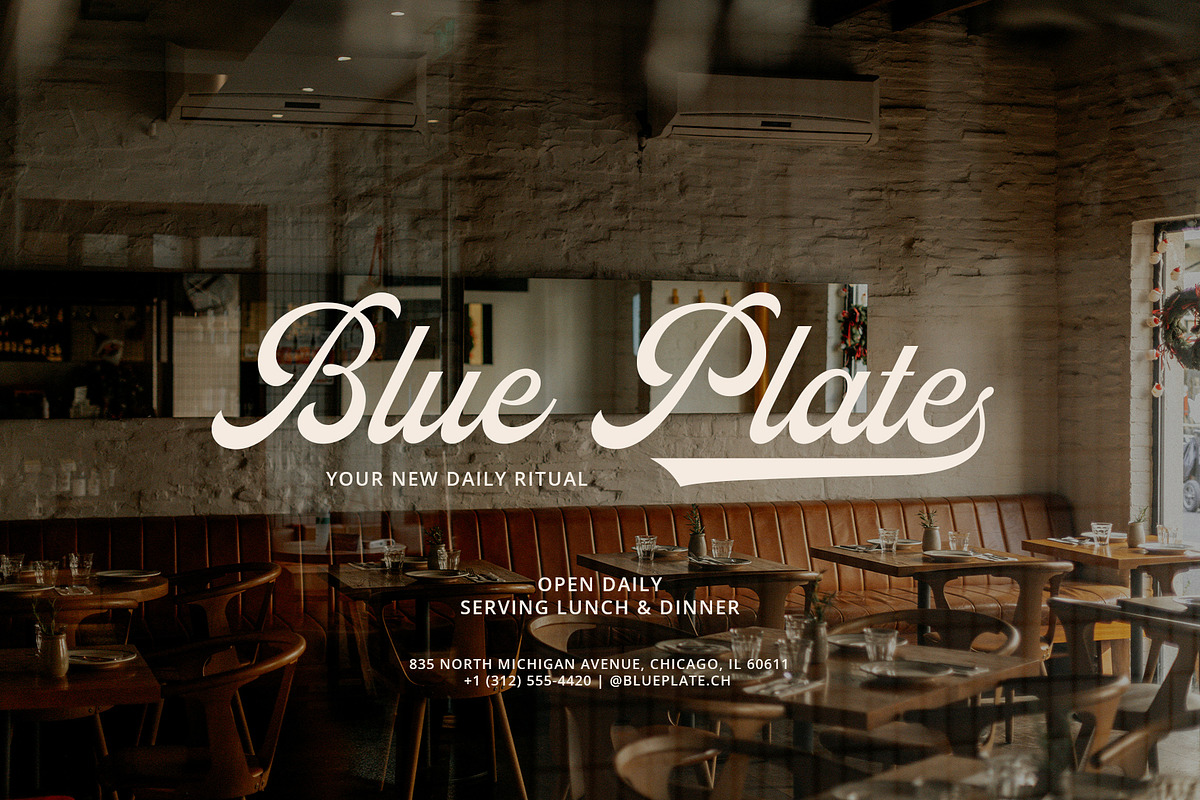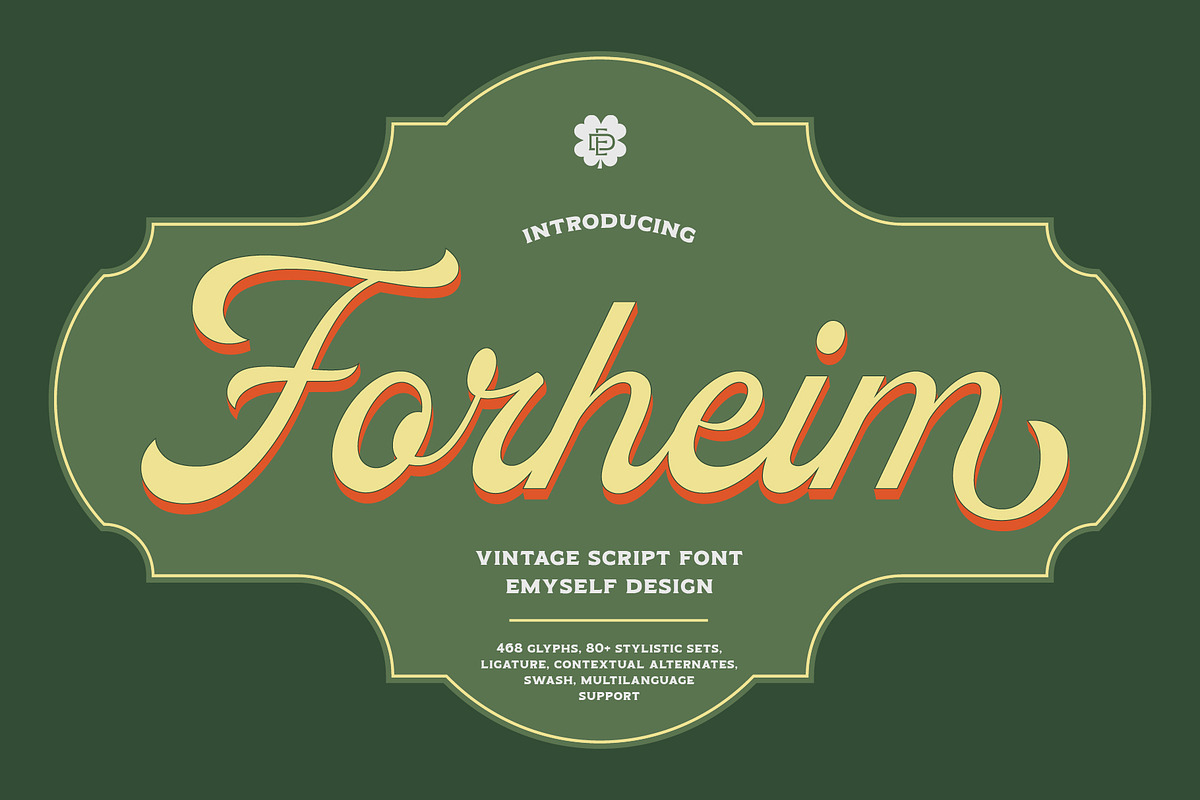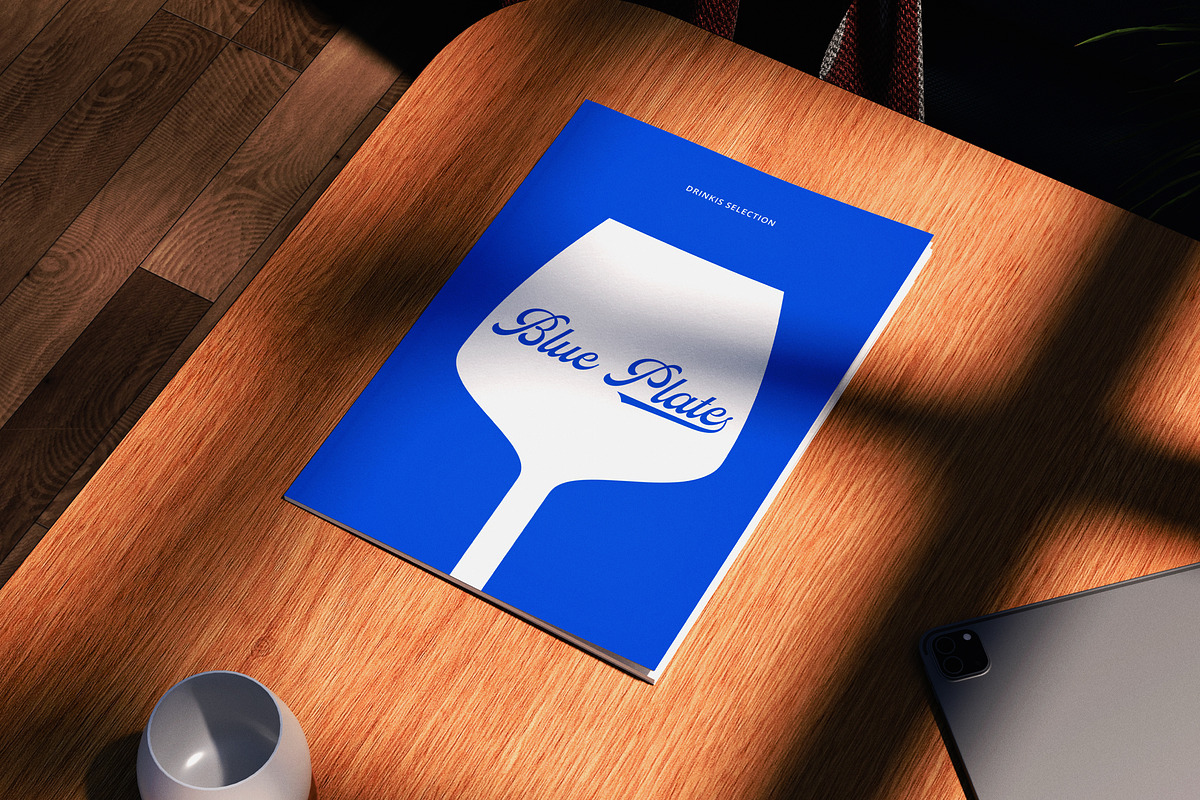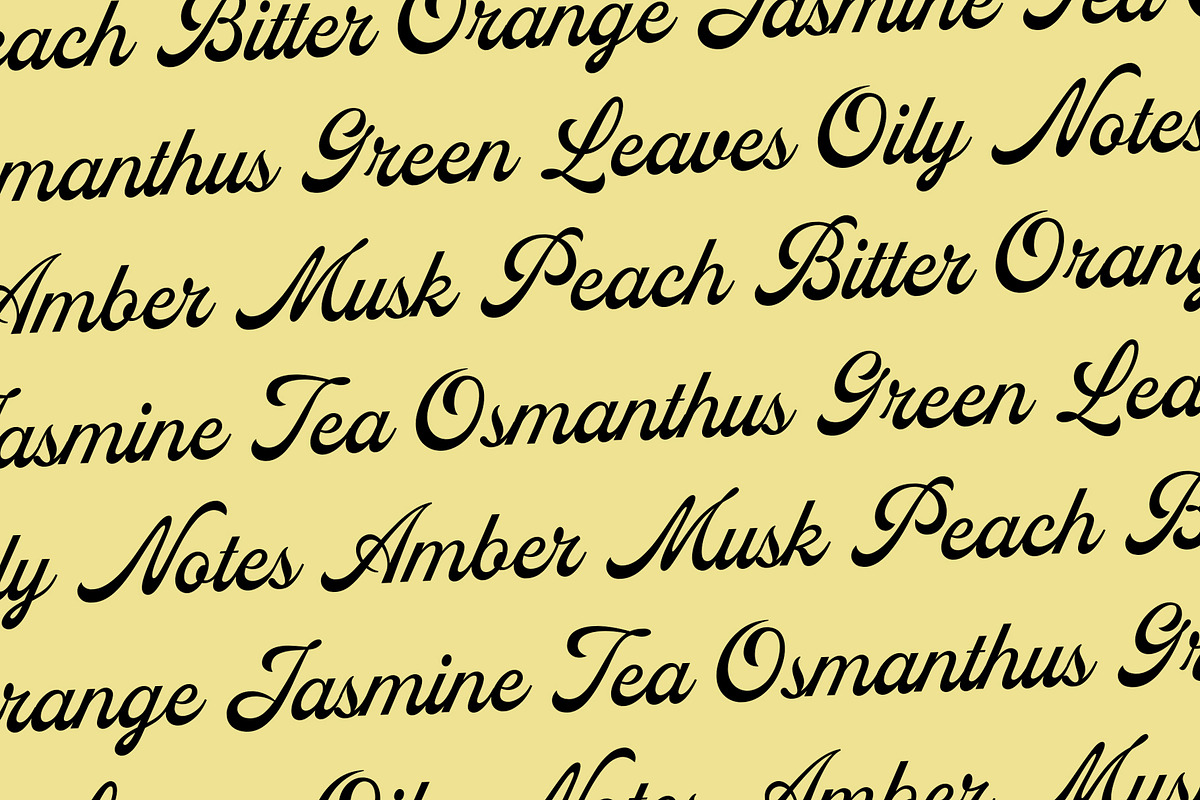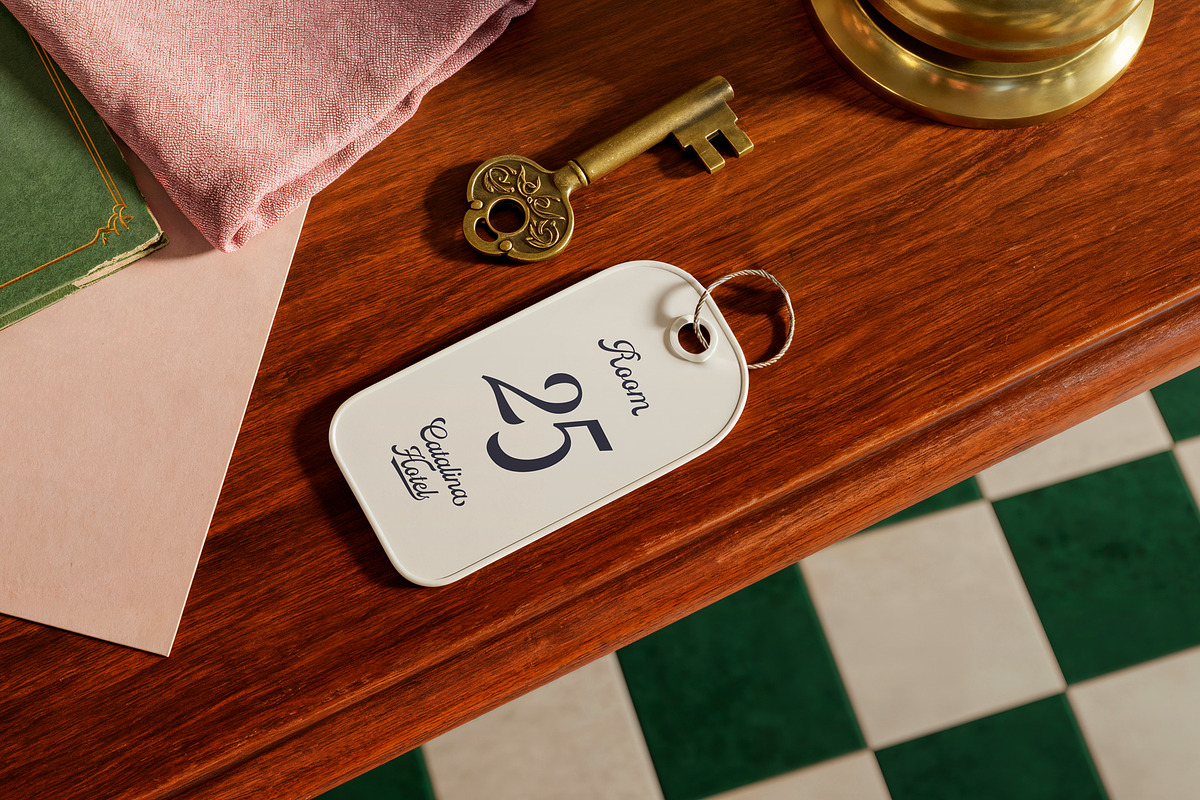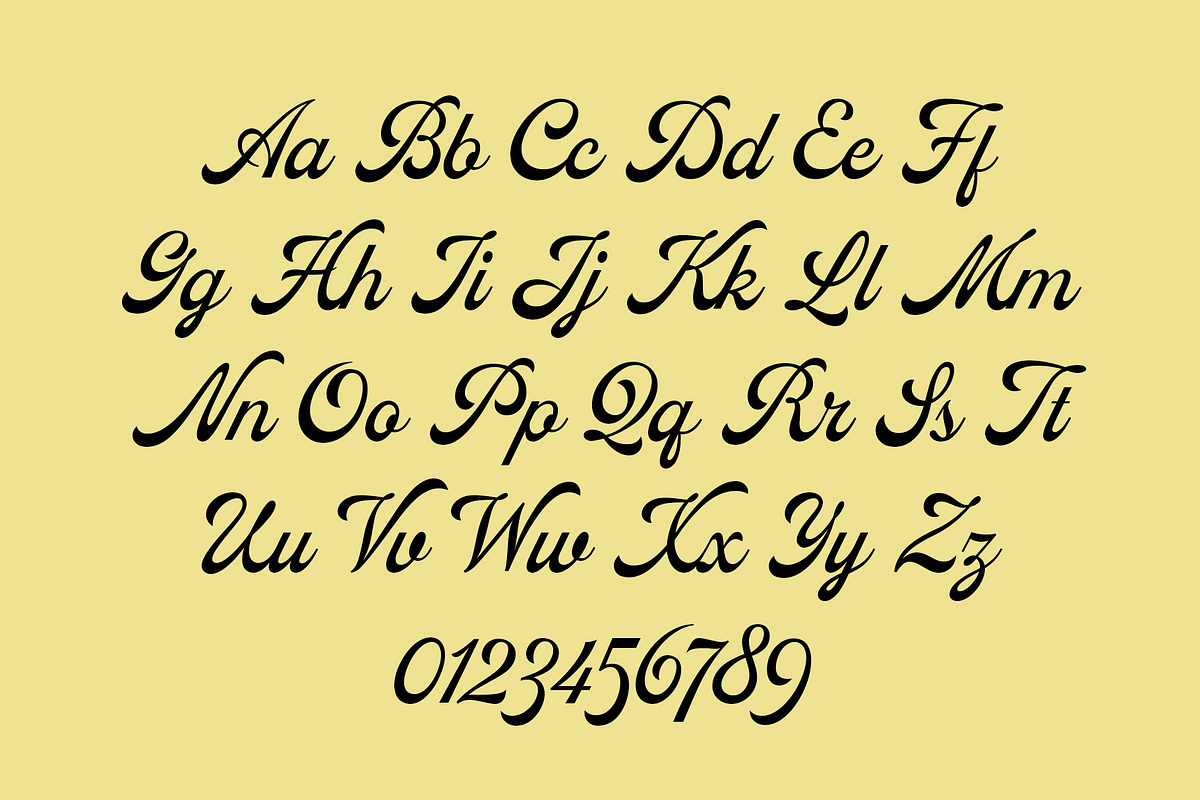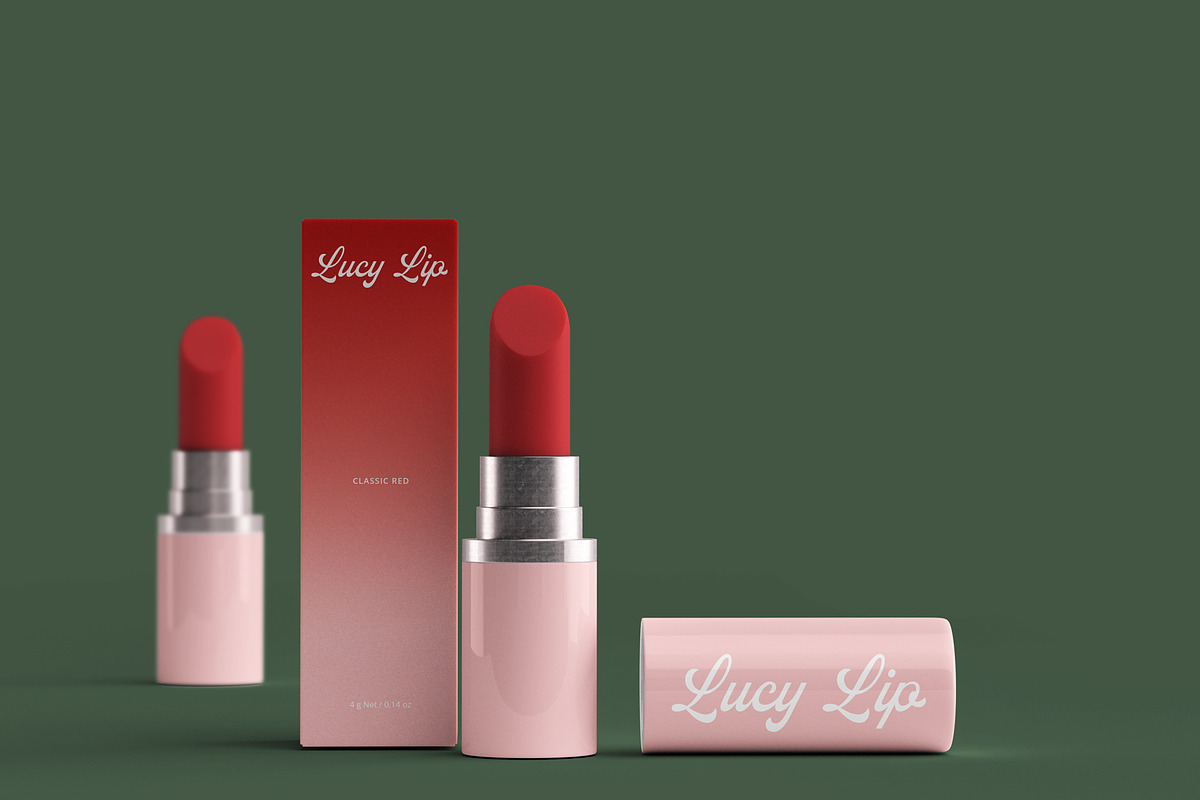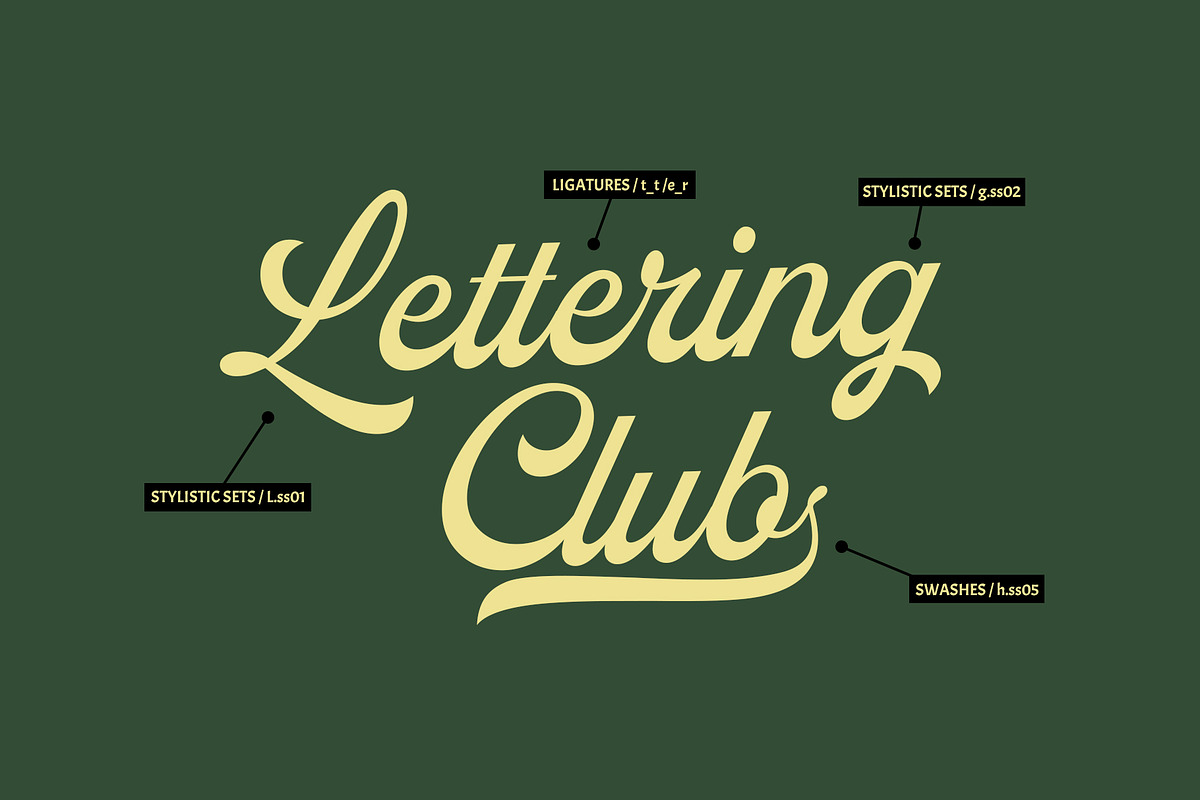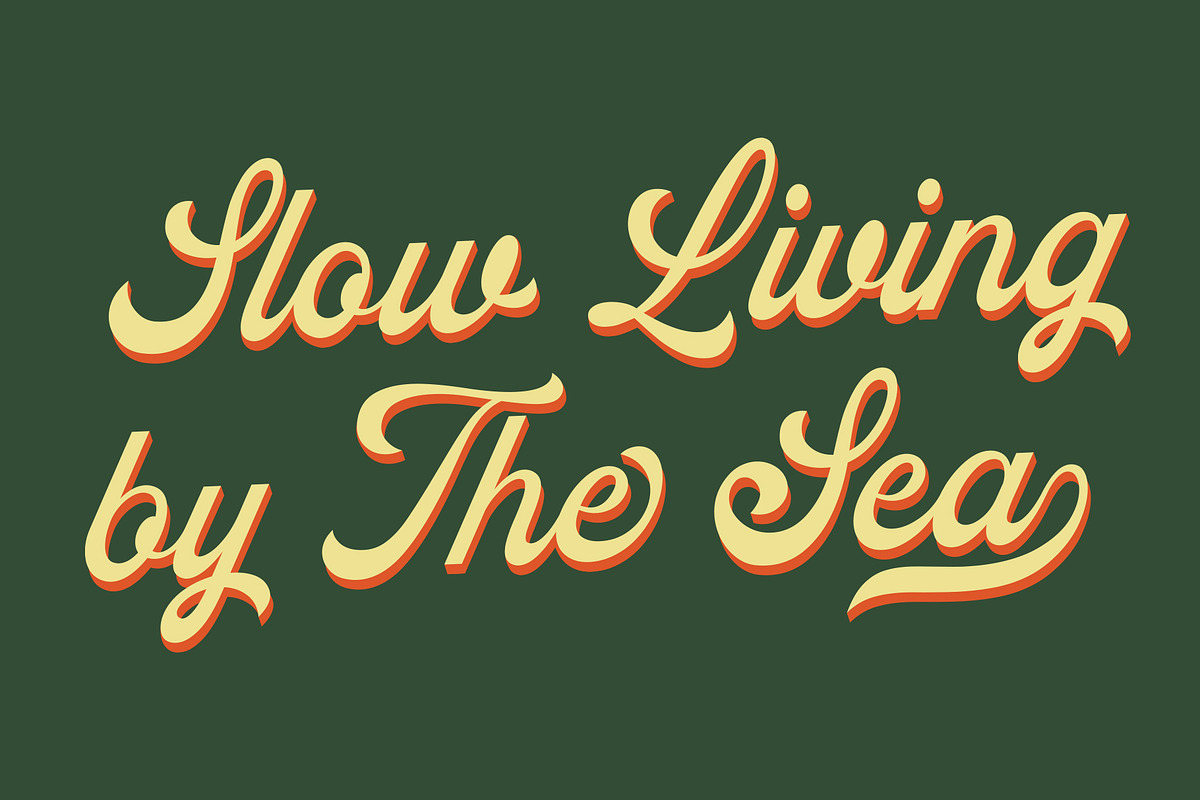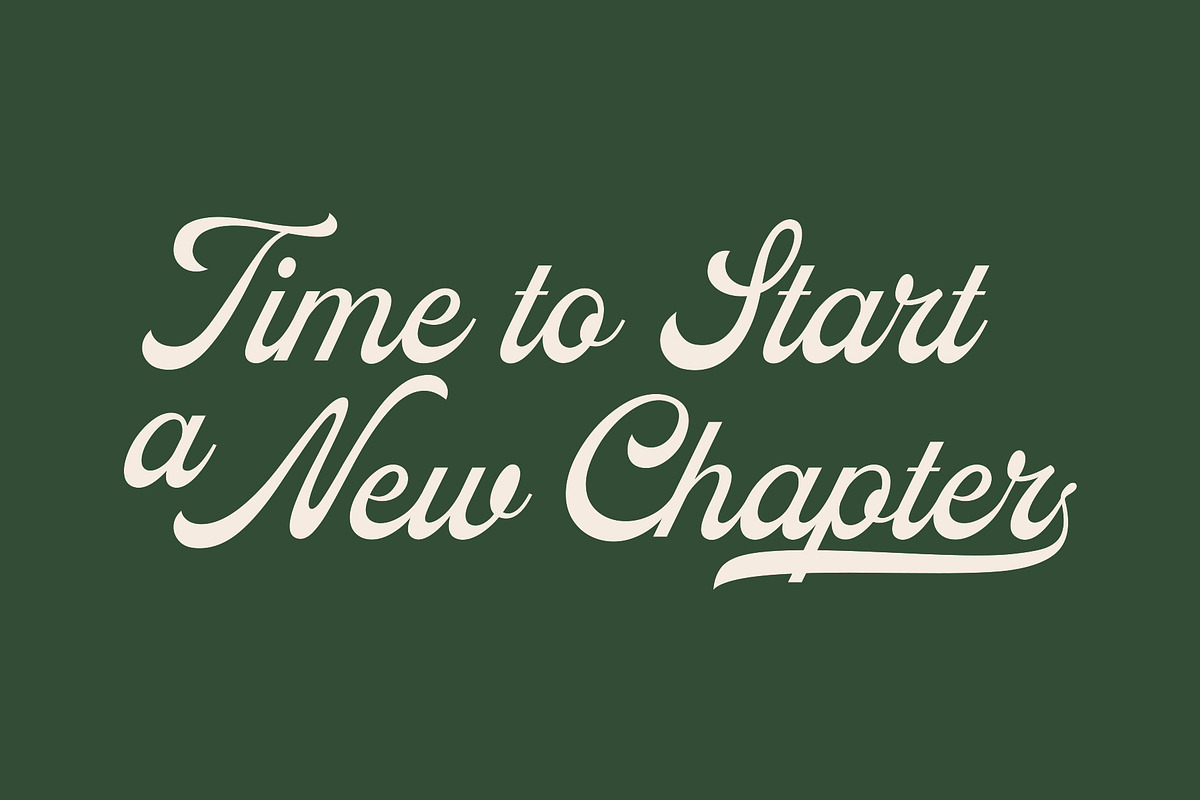
ED Forheim - Vintage Script
Forheim is a vintage-inspired script font designed to capture classic lettering charm with a bold, timeless presence. Its flowing curves, confident strokes, and carefully crafted details evoke the feel of traditional sign painting and retro typography.
This font features rich alternates that bring flexibility and personality to your designs. With 468 glyphs, 80+ stylistic sets, ligatures, contextual alternates, and expressive swashes, Forheim allows you to create dynamic lettering compositions that feel authentic and handcrafted.
The letterforms balance elegance and strength, making Forheim highly suitable for logos, branding, packaging, apparel, signage, labels, and editorial designs that require a vintage or heritage aesthetic. Its smooth connections and decorative flourishes add visual interest while remaining readable and versatile.
- Total Glyph: 468
- Punctuation and Marks
- Stylistic set & Ligatures
- Contextual alternates